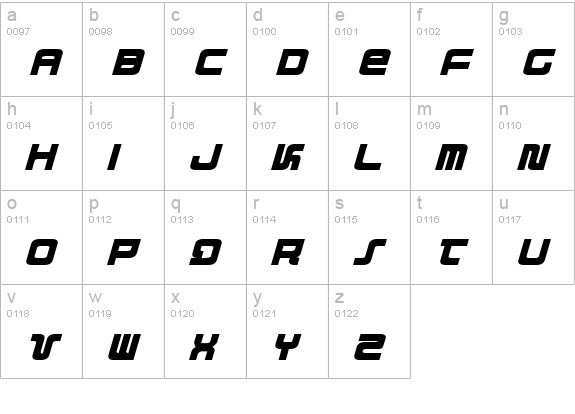
DirektorItalic is a sleek and modern font that exudes sophistication and elegance. With its bold and sharp lines, this font is perfect for creating eye-catching designs that demand attention. The italic style adds a touch of flair and creativity, making it an ideal choice for projects that require a touch of sophistication. The best part about DirektorItalic is that it is completely free to download at FontsMarket.com. This means you can easily access this stylish font without any cost, making it a valuable addition to your design toolkit. Whether you're working on a branding project, poster design, or any other creative endeavor, DirektorItalic is sure to elevate your work with its unique and contemporary aesthetic. Download DirektorItalic now from FontsMarket.com and unleash your creativity with this stunning and versatile font.